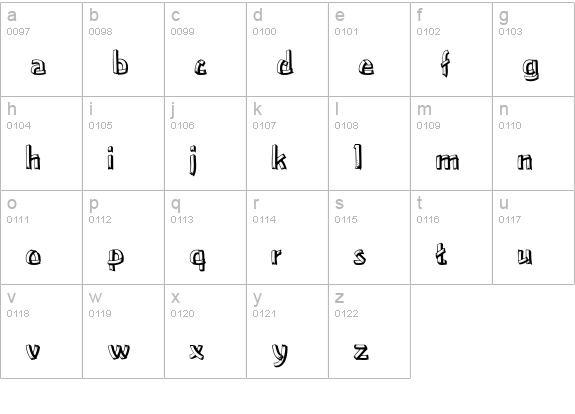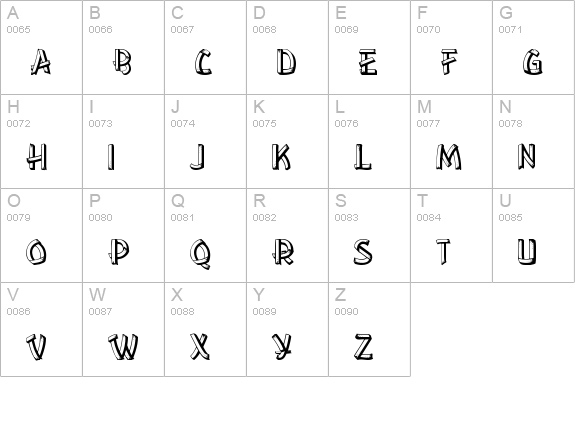
LowerEastSide Regular Font Details
LowerEastSide Regular is the standard, neutral variant in the LowerEastSide typeface family \xE2\x80\x94 well suited to general body text, paragraphs, and standard typographic work.